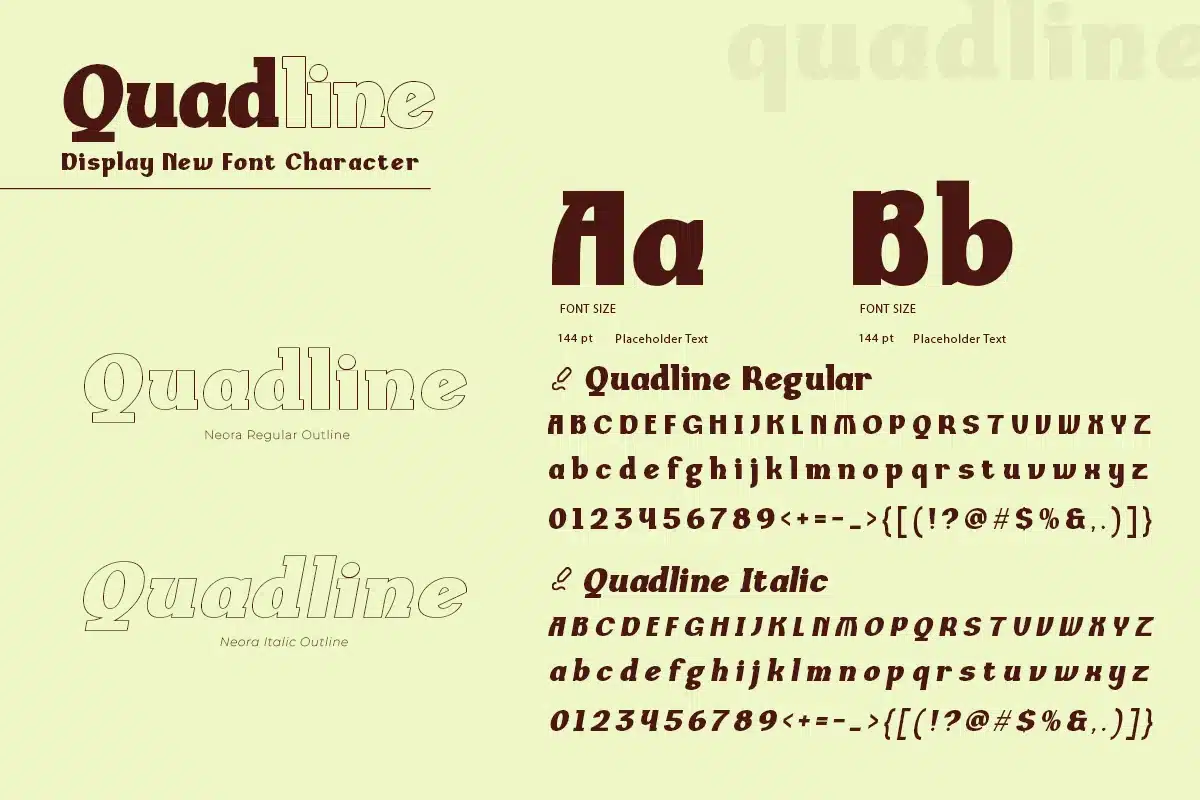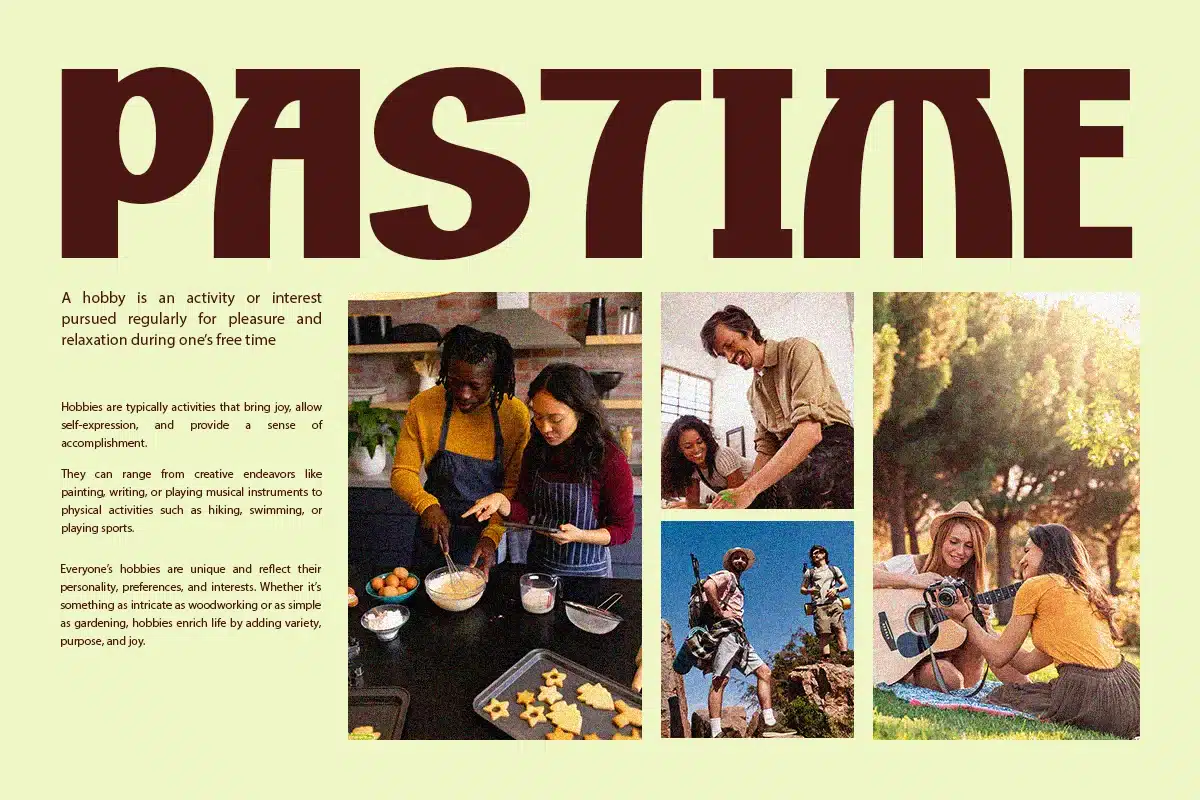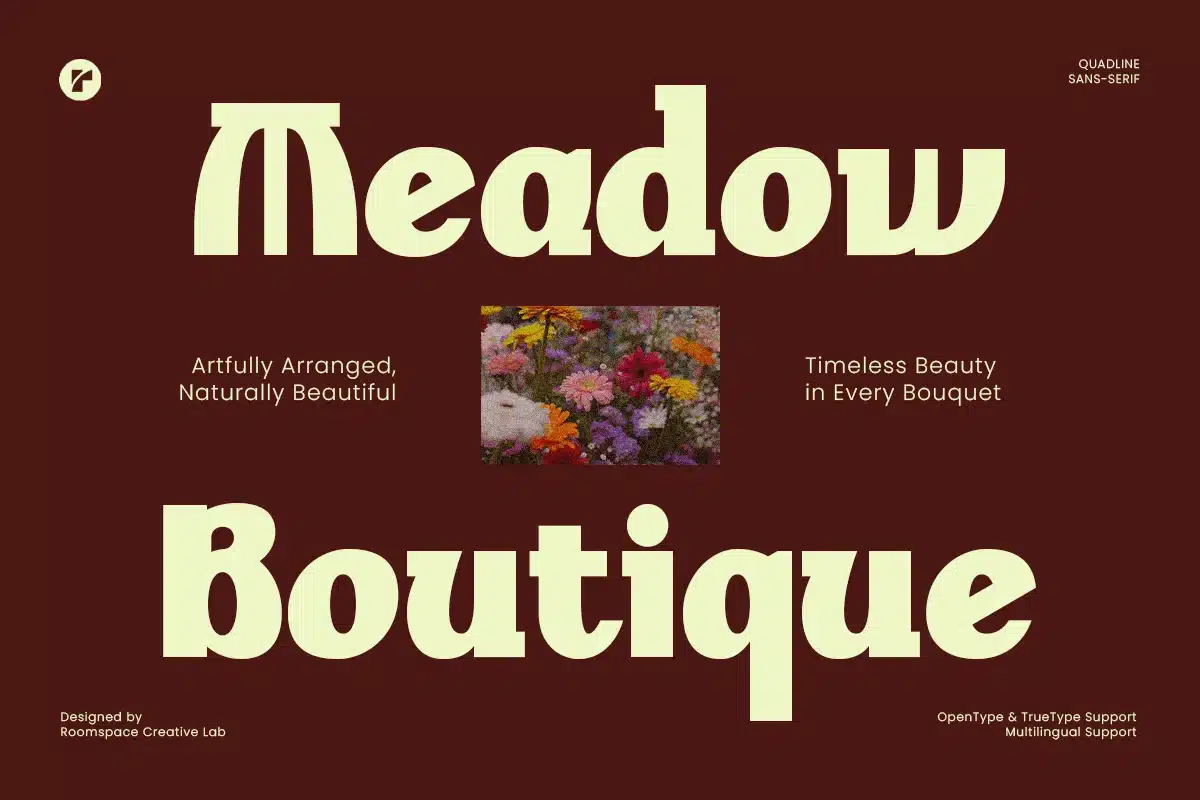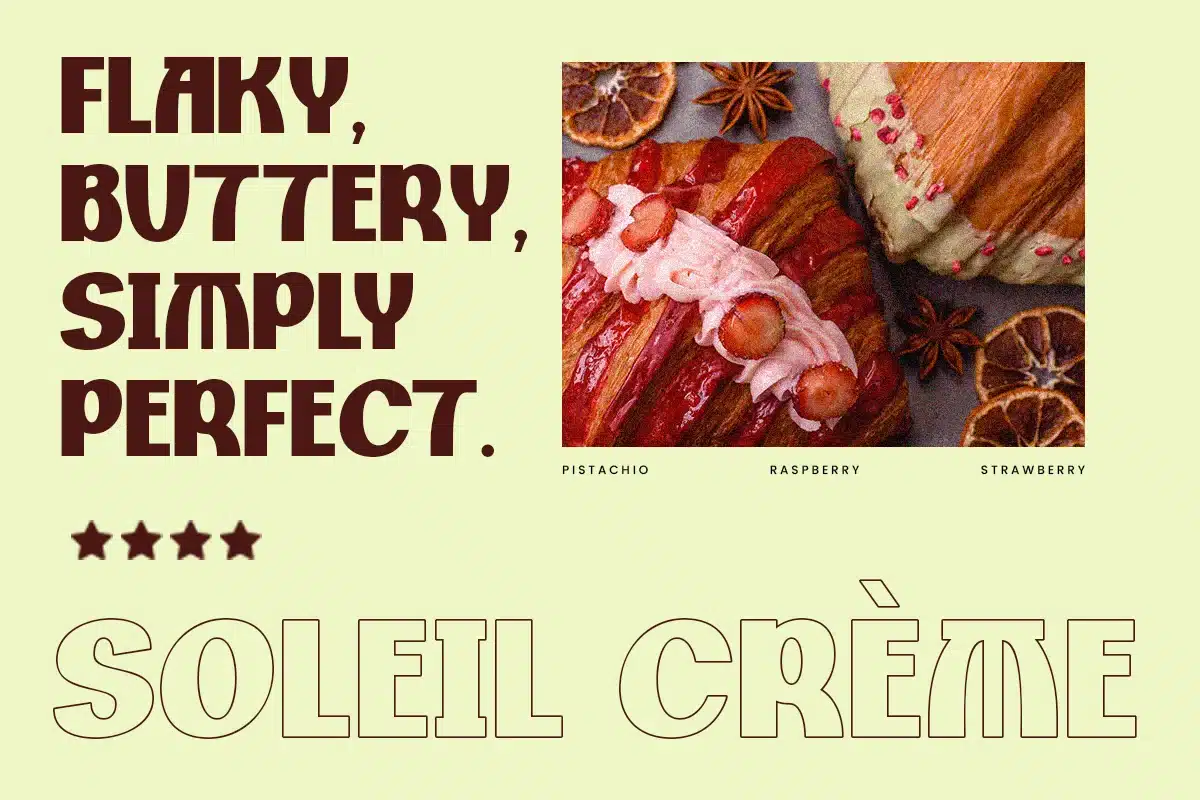
Quadline – Display Serif Retro Modern Logo & Brand Font
Quadline is a bold display serif condensed font with a retro-modern vibe, combining strong structure and timeless elegance. Its sharp serifs, clean proportions, and balanced kerning make it versatile for impactful designs. Perfect for logos, branding, packaging, posters, social media, magazines, and editorial projects, Quadline brings a sophisticated yet stylish personality to your typography. Add Quadline to your font library today and give your designs a bold, classic touch with modern appeal.